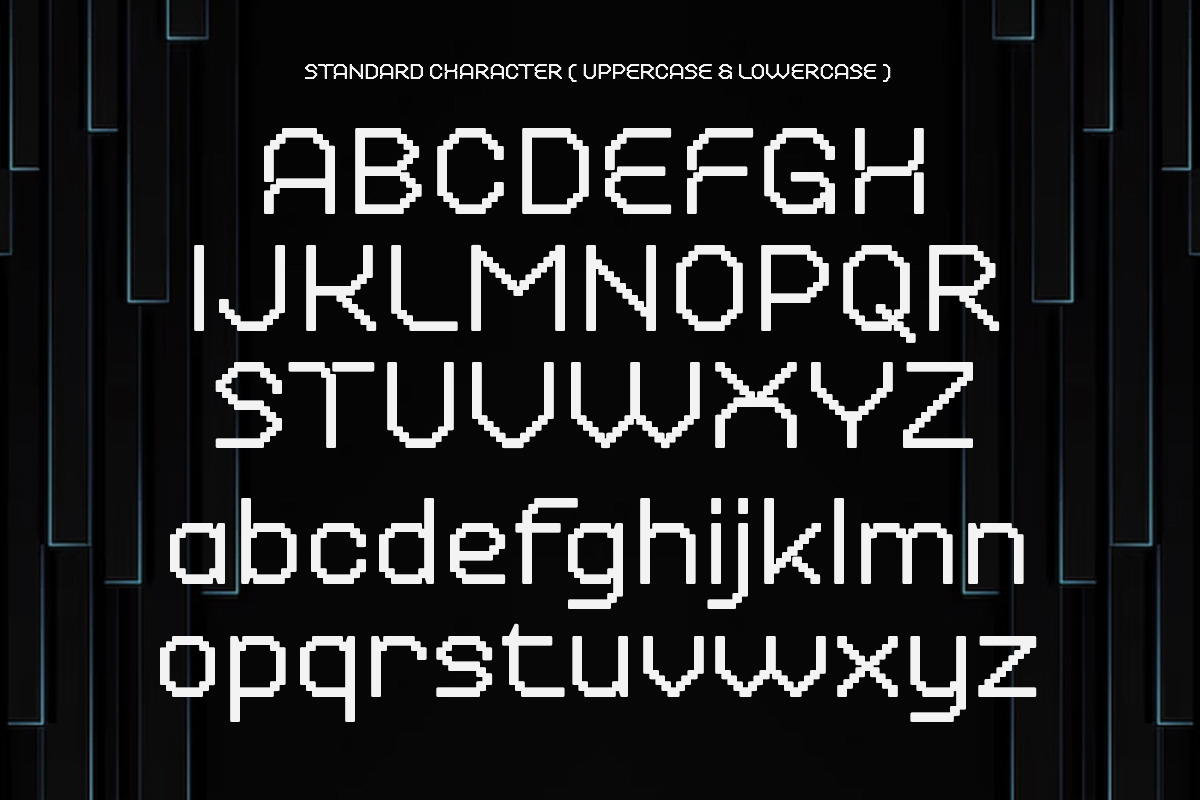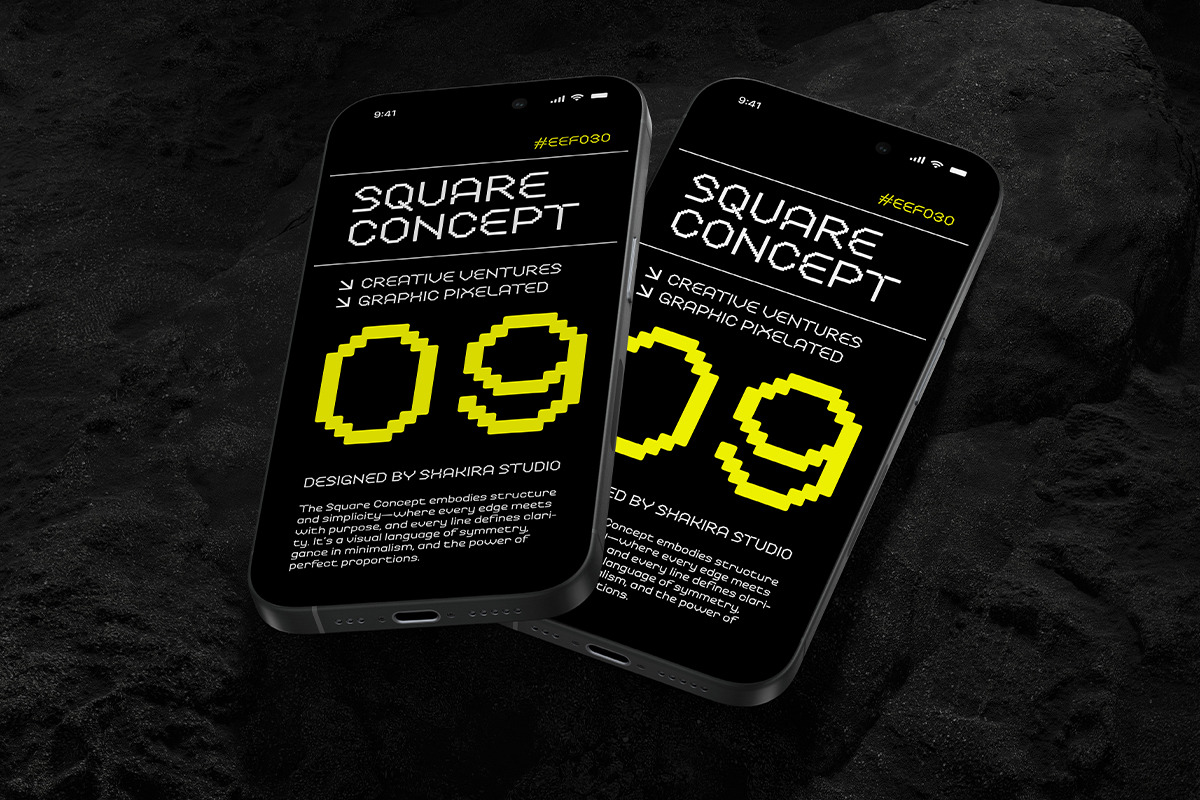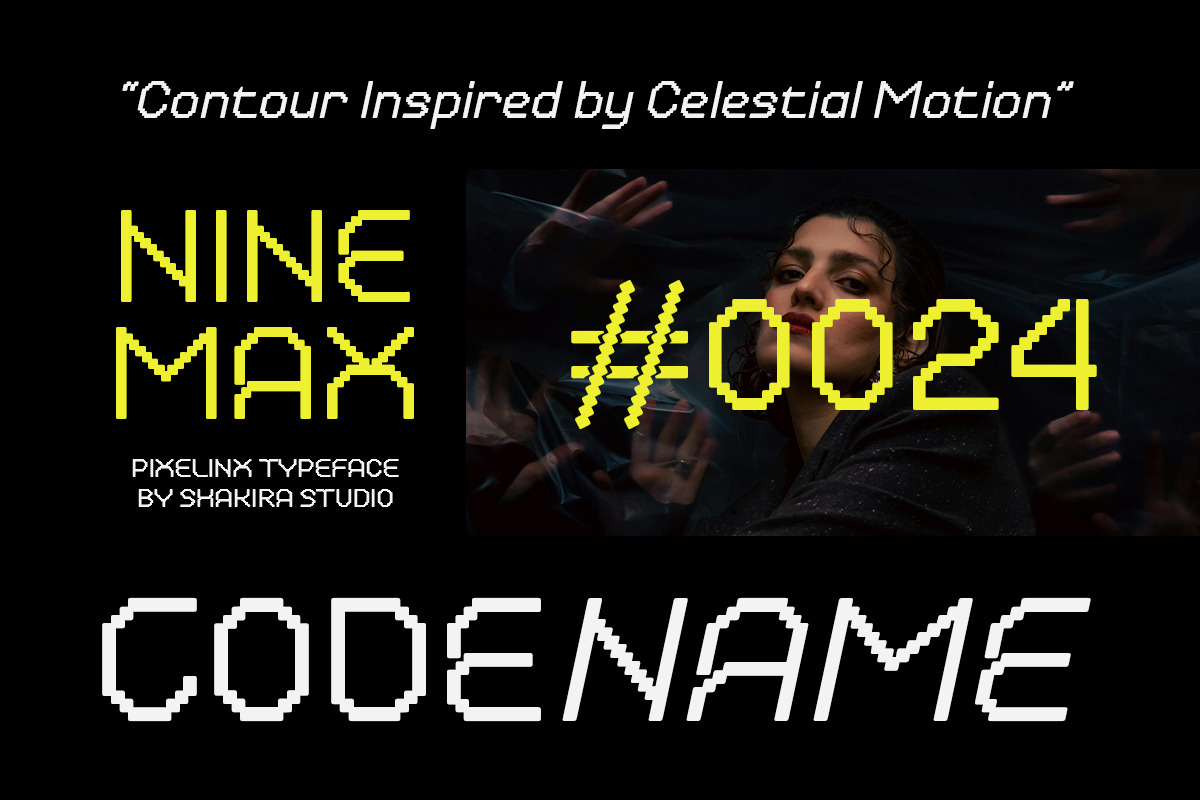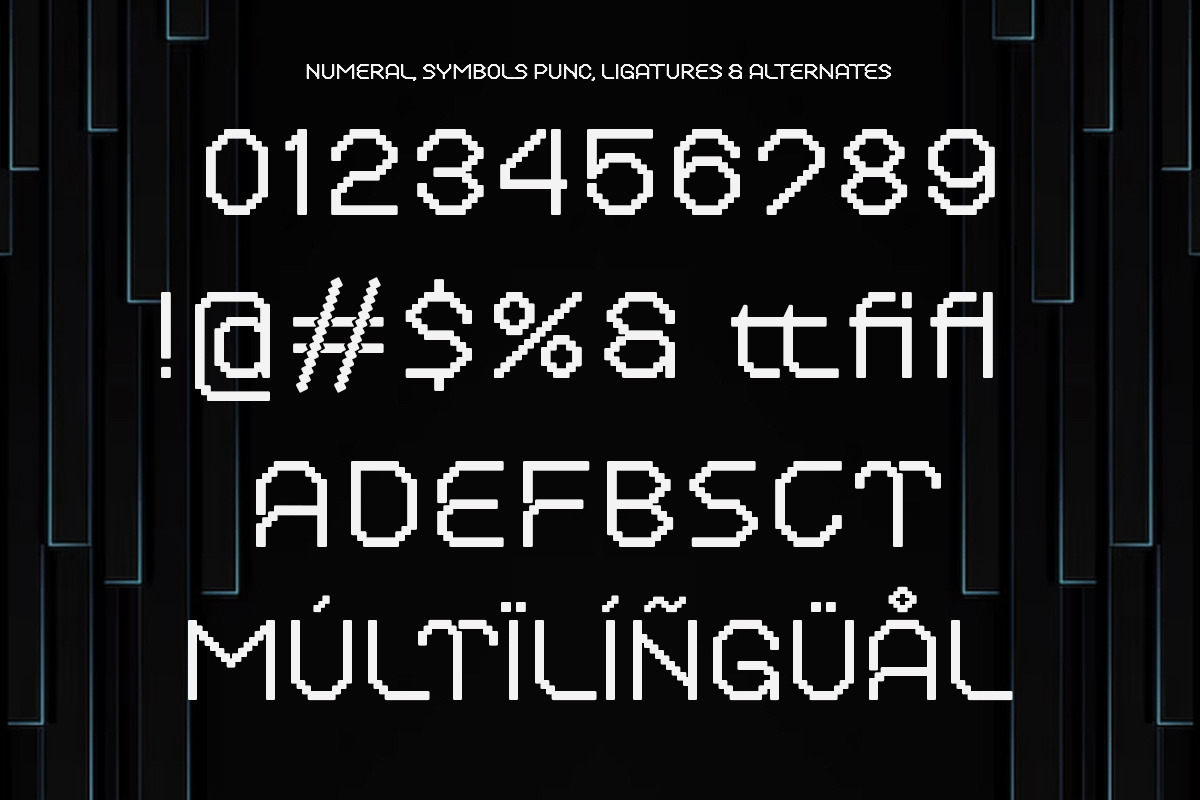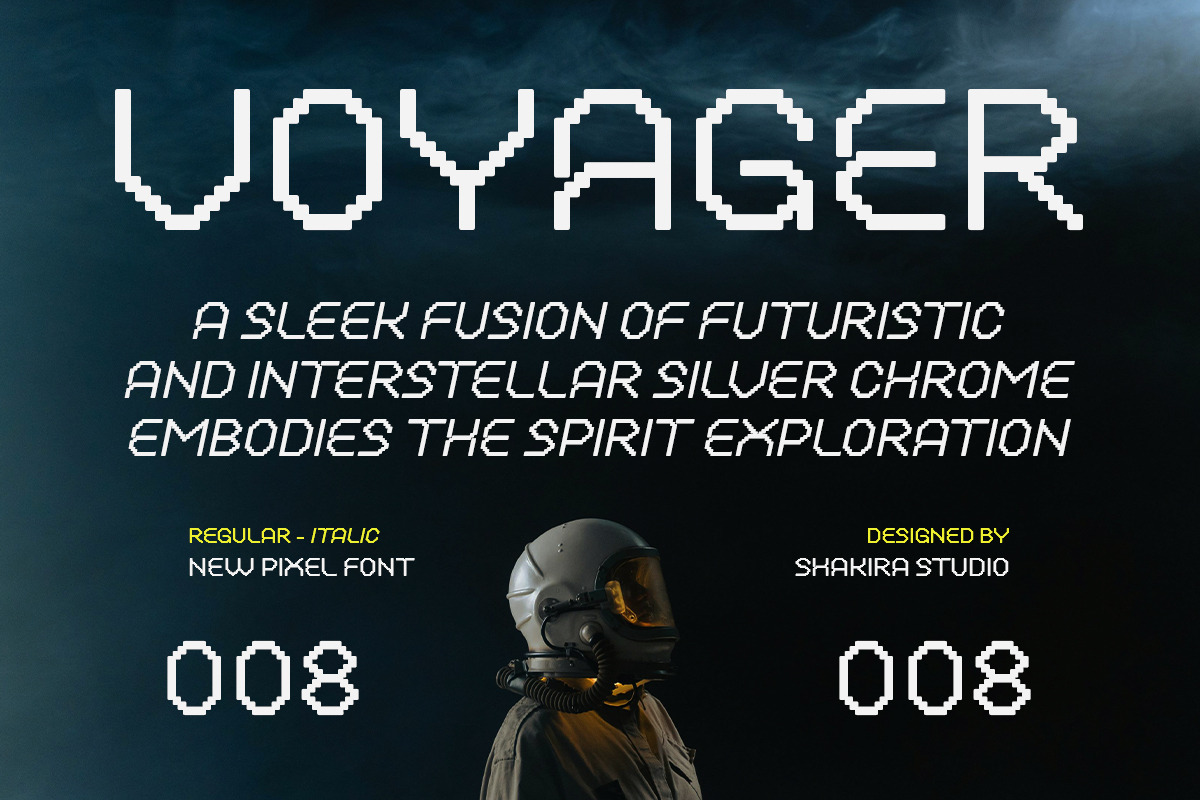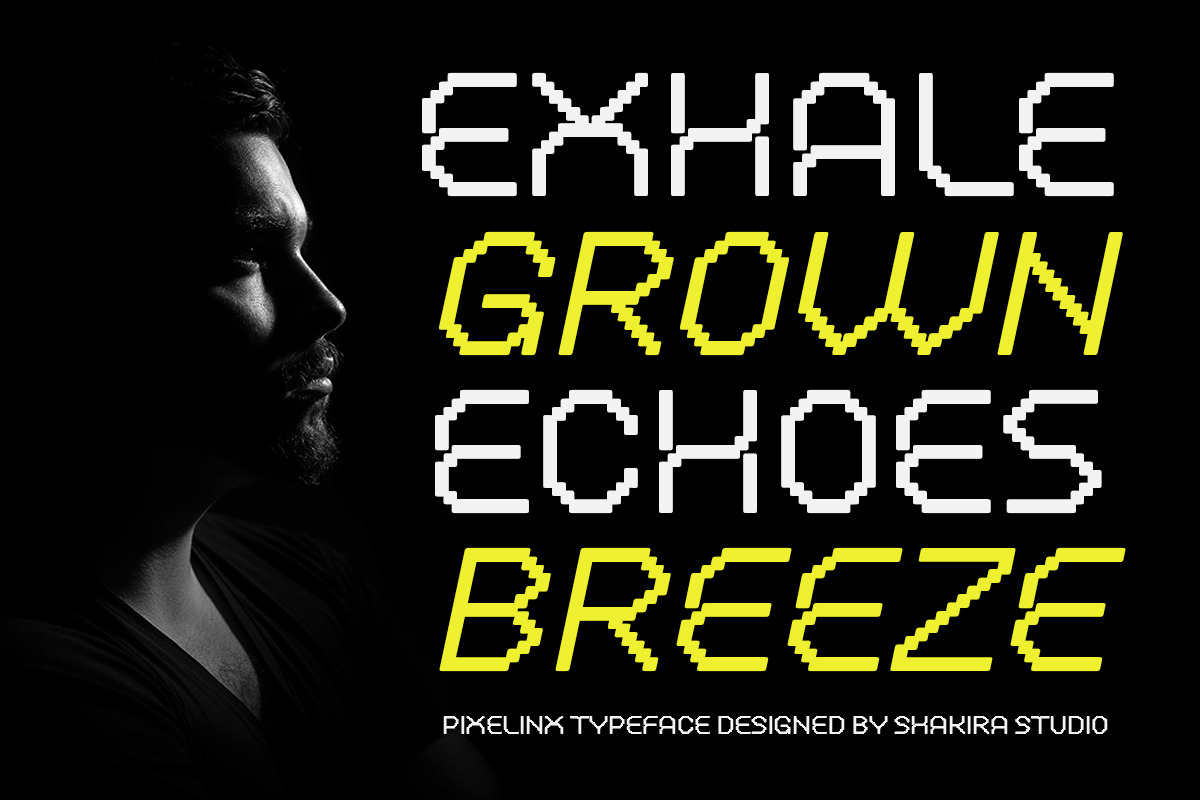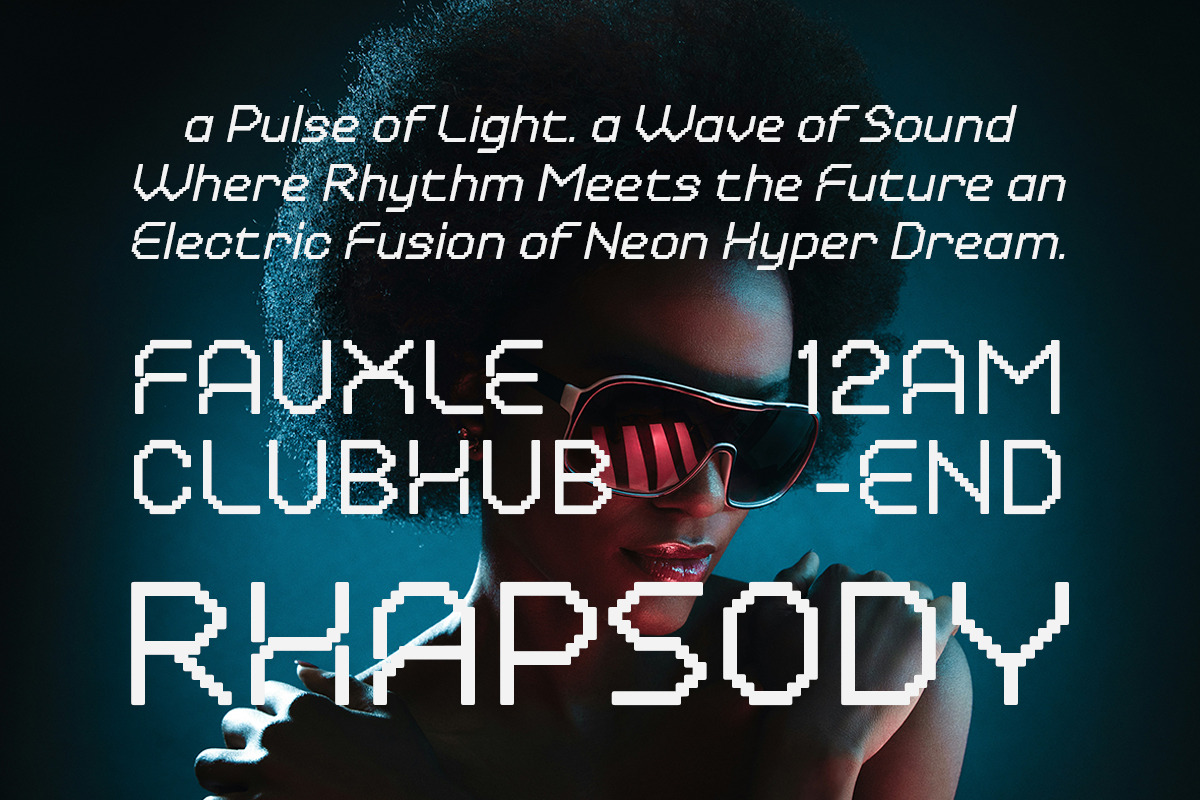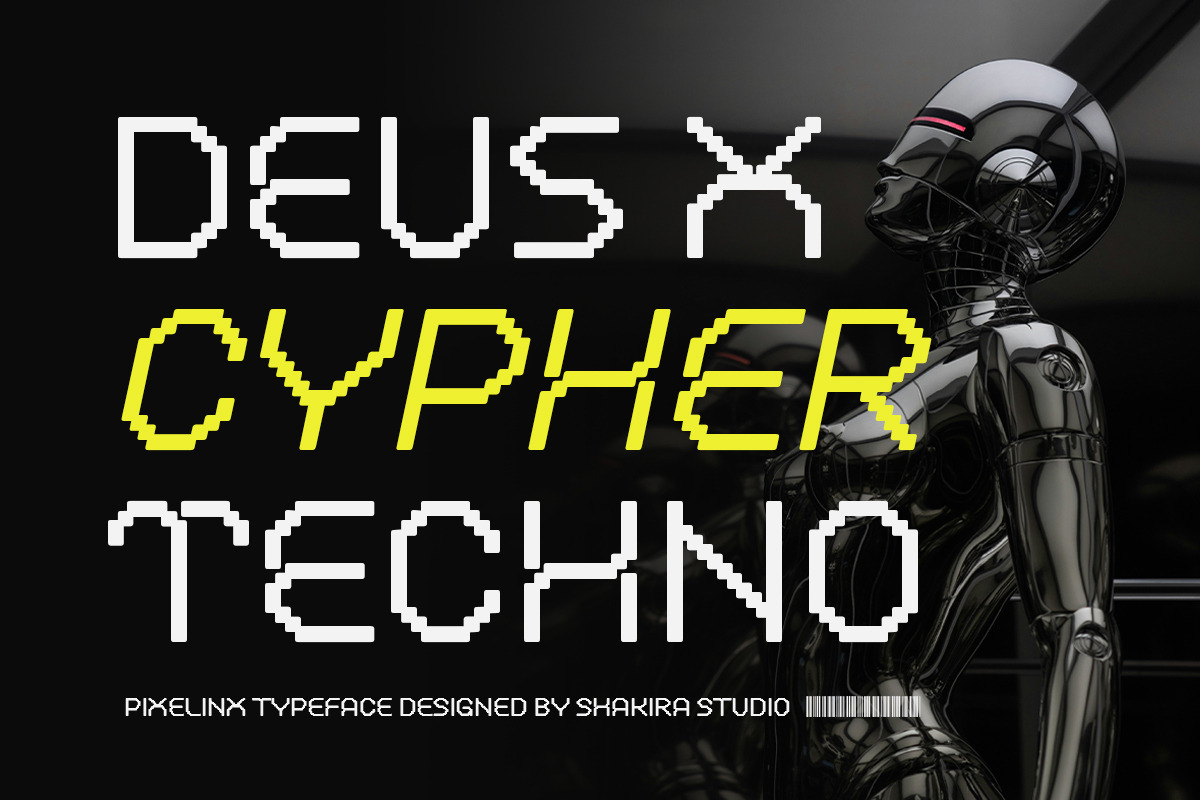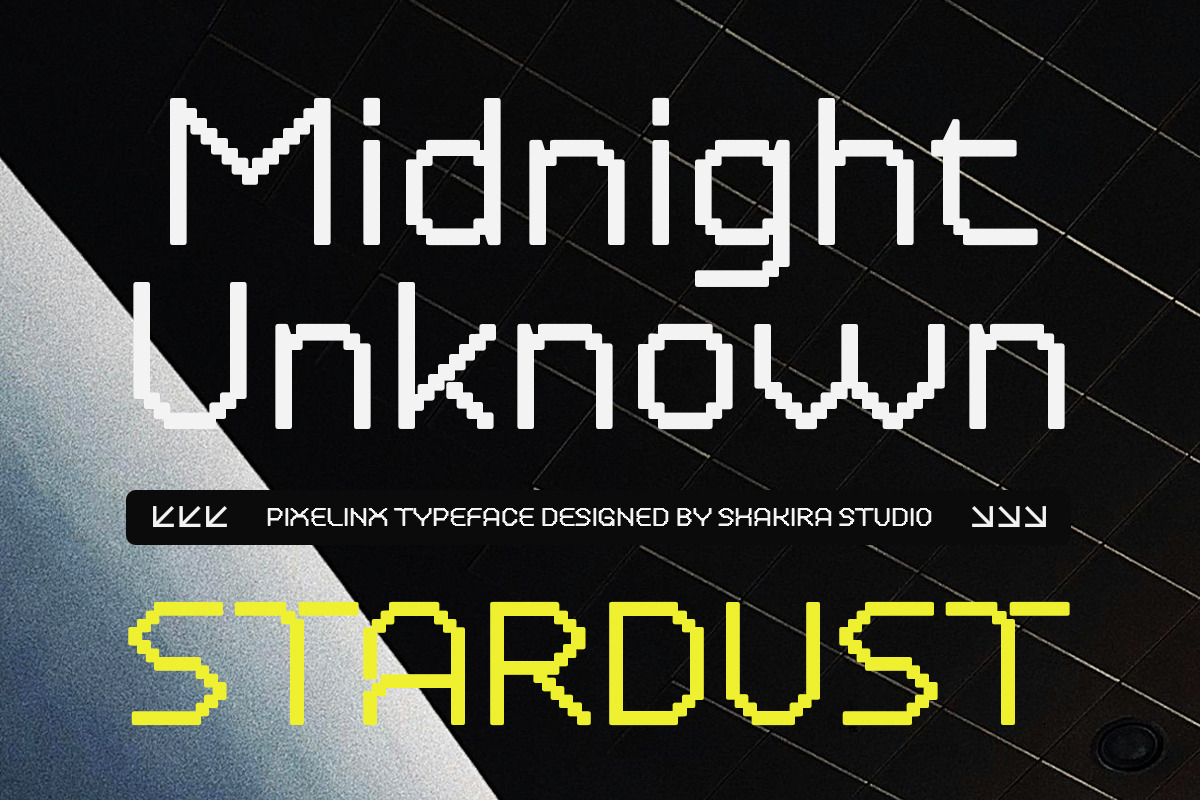
Pixelinx - Futuristic Display Pixel
Pixelinx - Futuristic Display Pixel Font for Tech & Gaming Projects
Pixelinx is a futuristic pixel display font crafted for digital-era creatives. Designed with pixel-perfect precision, this typeface blends retro gaming vibes with modern tech energy—making it ideal for UI design, esports branding, YouTube thumbnails, techwear fashion, or digital products that crave a cyberpunk edge.
Its sharp square forms and minimal spacing make it visually striking at any size, especially for titles, headlines, interfaces, and tech-focused visuals.
✦ Font Features:
- Pixel Display Typeface – Futuristic aesthetic with sharp, clean edges
- 2 Styles – Regular & Italic for flexible applications
- Digital-Ready – Ideal for screens, websites, and games
- Uppercase Font Set – With punctuation and symbols
- Strong Grid-Based Design – Authentic 8-bit/16-bit pixel style
- Techno-Inspired – Great for AI, VR, and metaverse themes
- Multilingual Support – Extended Latin set
Best For:
- Game design & UI titles
- YouTube thumbnails & stream overlays
- NFT art or crypto branding
- Esports teams or cyberwear fashion
- App splash screens & tech startups
- Posters, flyers & event branding
Pixelinx – Where Retro Meets the Future
Bring the past and future together with Pixelinx, the ultimate font for creators who live in pixels. Whether you’re building a cyber world, launching a new app, or designing a neon-lit interface, Pixelinx delivers.